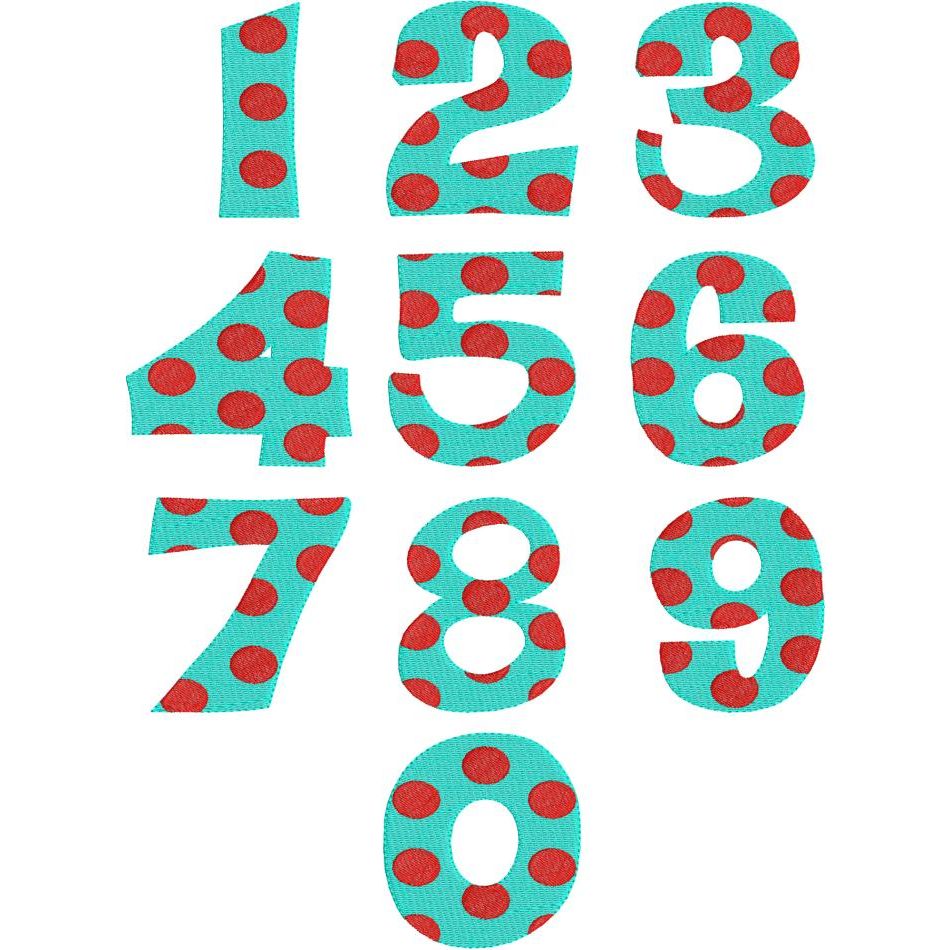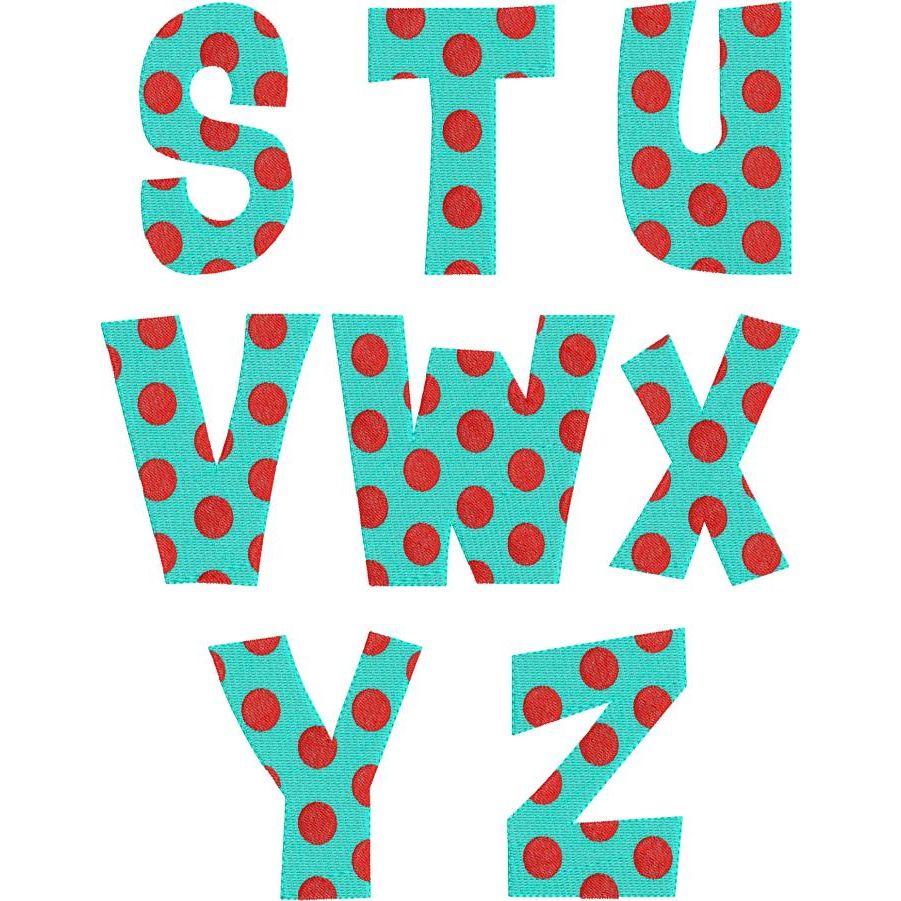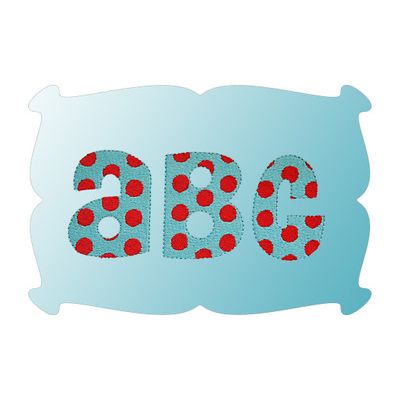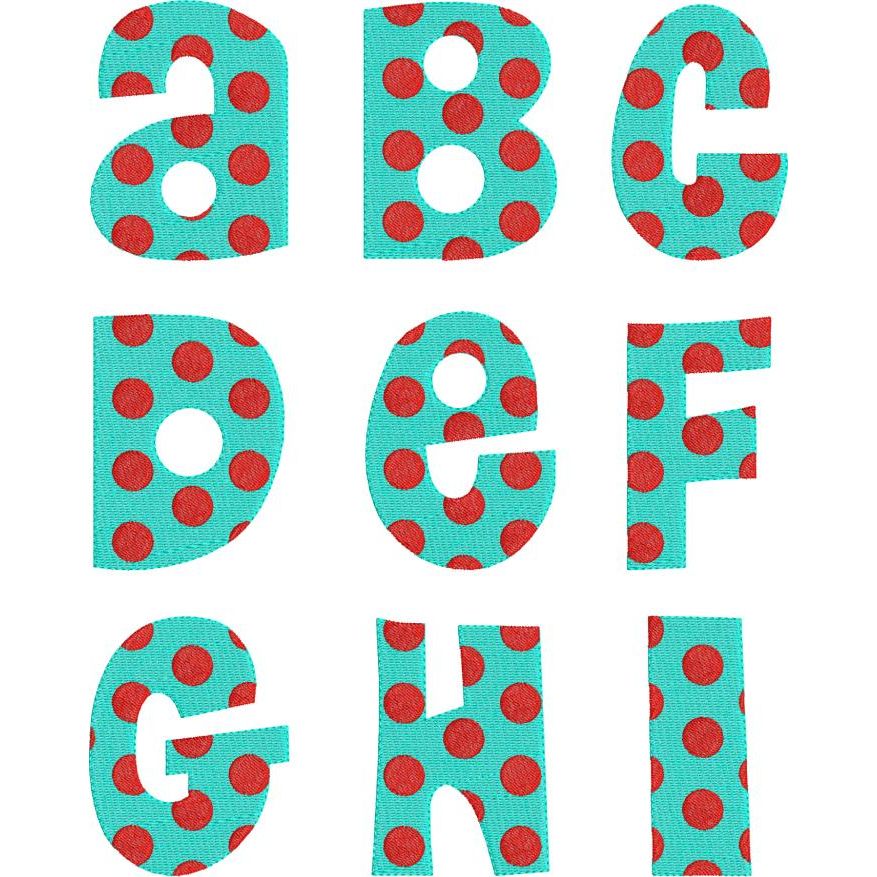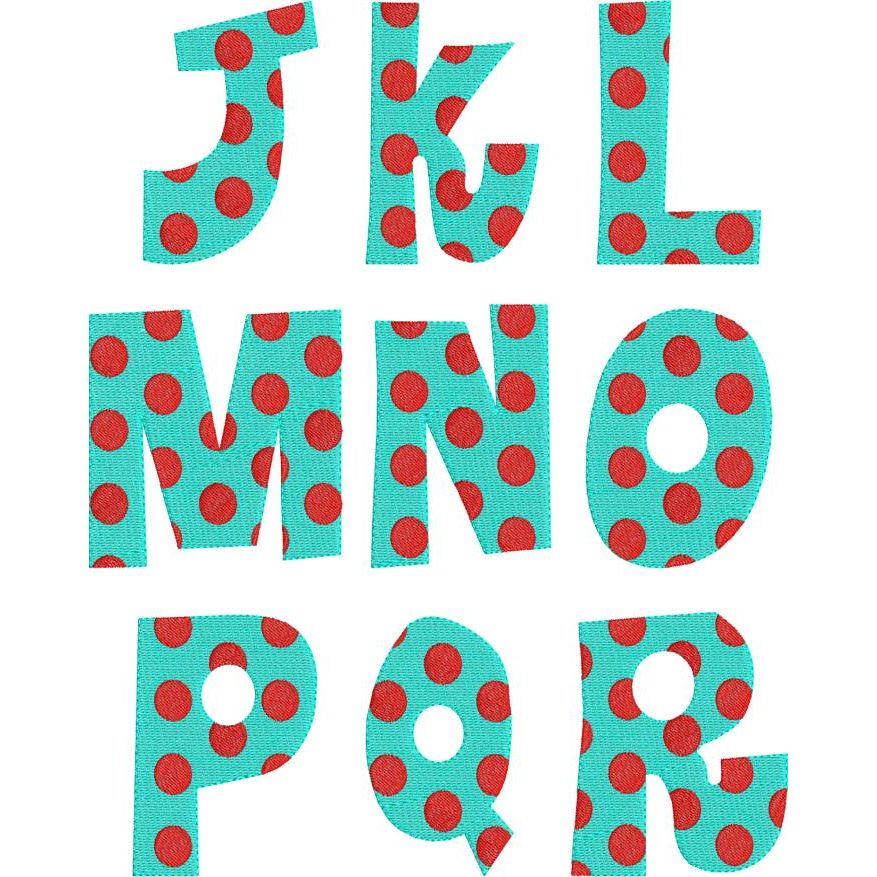
Polka Dot Fill Stitch Embroidery Font
Polka Dot Fill Stitch Font
It's a whimsical font for Oneises, T's and burp cloths too.
You can change the colors to match your favorite holiday.
The 2 inch size fits great on Dollys' shirt!
The Polka Dot Fill Stitch Font is perfect for all of the polka dot fabric in your stash.
Upper Case letters A thru Z and numbers 0 thru 9.
Please Note: The upper case letters are funky so some of them may look like lower case letters. It's a cute look!